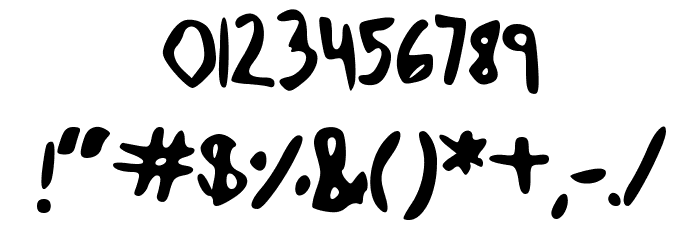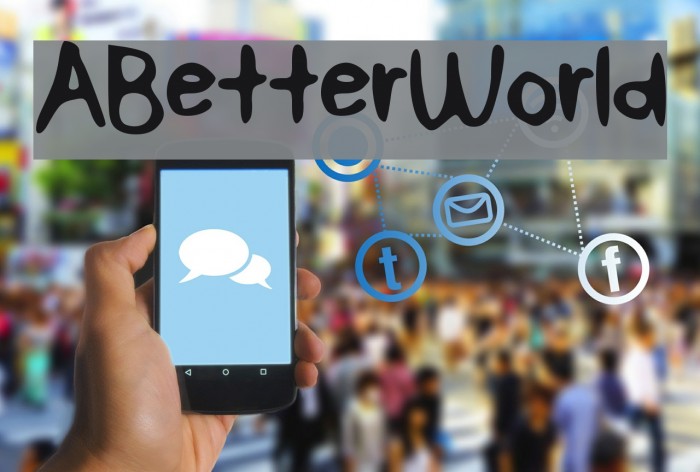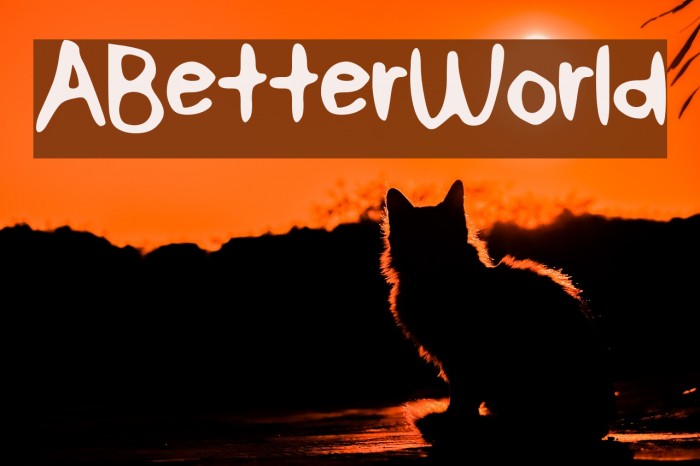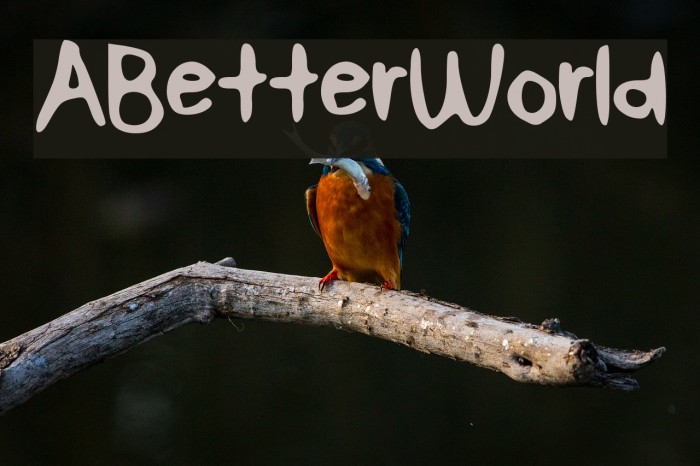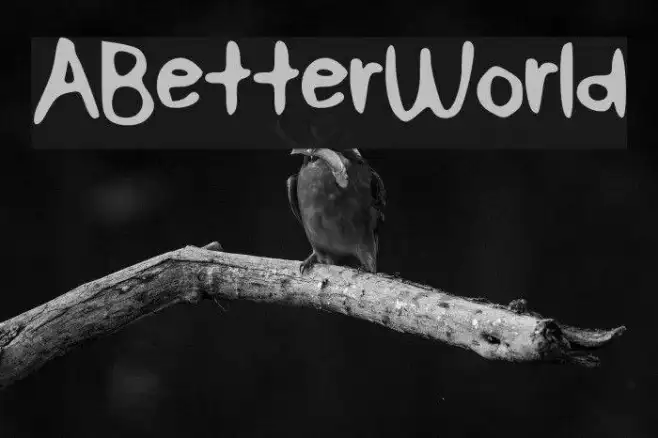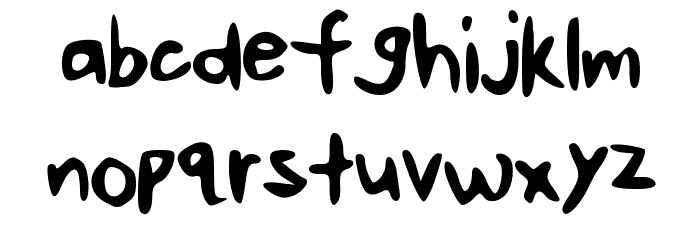
ABetterWorld Font
This font features a playful and informal handwritten style, characterized by its rounded and slightly irregular letterforms. The uppercase and lowercase letters maintain a consistent flow, giving it a casual and approachable appearance. The numbers and special characters are crafted with the same whimsical touch, making them blend seamlessly with the alphabet. The overall design exudes a sense of friendliness and creativity, suitable for projects that aim to convey warmth and personality.
A playful, handwritten font with rounded, informal letterforms.
• Proposed Projects: Ideal for children's books, greeting cards, personal blogs, and creative branding projects.
• Category: Handwritten
• Overall Style: Casual